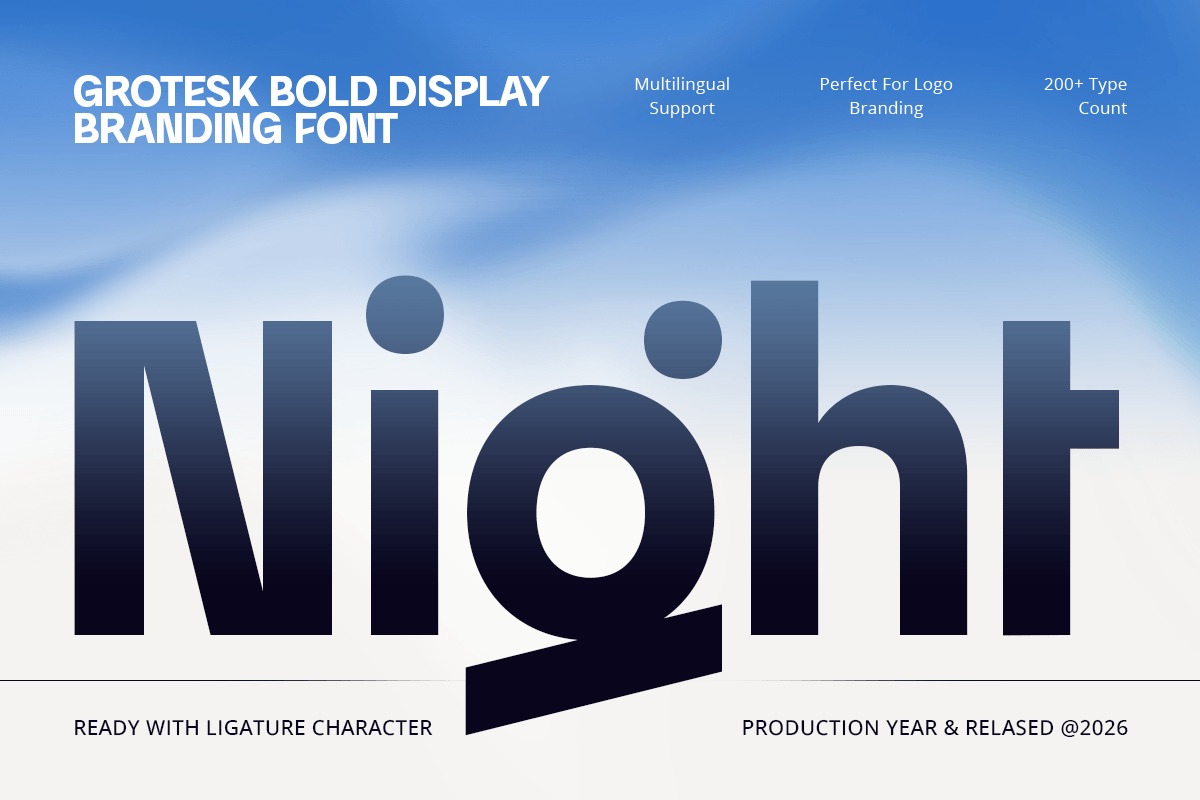
Night – Grotesk Bold Font
Night – Grotesk Bold Font is a flexible and reliable font created to fit multiple design needs, from branding and packaging to social media and editorial layouts. Night – Grotesk Bold Display Branding Font is a bold display font designed for modern branding, powerful headlines, logo design, and contemporary visual identity systems. Inspired by classic grotesk typography and modern branding trends, Night combines strong character with professional versatility to create impactful visual communication.
Featuring bold letterforms, balanced proportions, and a clean grotesk structure, this branding font delivers exceptional visibility and confidence across logos, marketing materials, editorial layouts, and digital platforms. Its strong typographic presence makes it ideal for brands that want to communicate authority, clarity, and modern sophistication.
Whether you’re creating a bold logo, developing a corporate identity, designing editorial headlines, or building a contemporary brand system, Night provides the powerful typography needed to make a lasting impression.